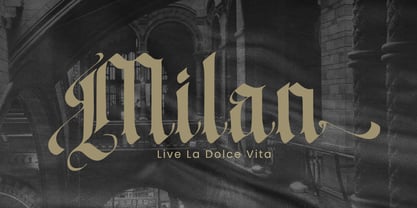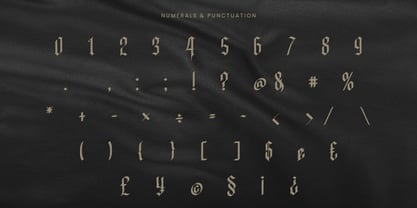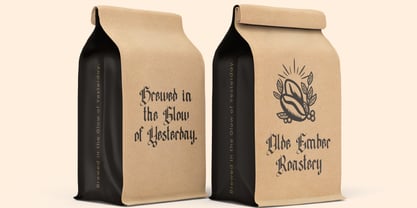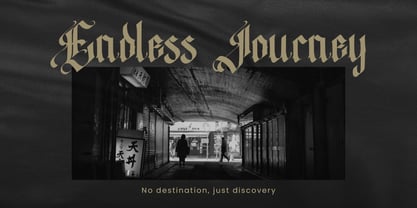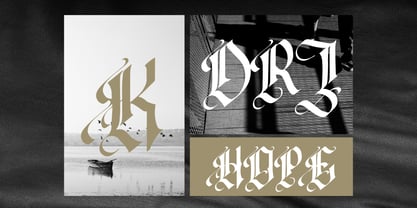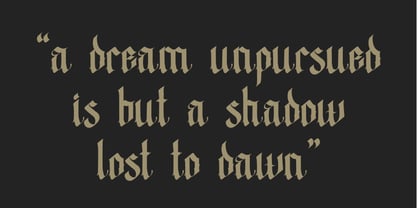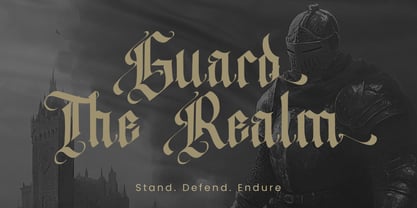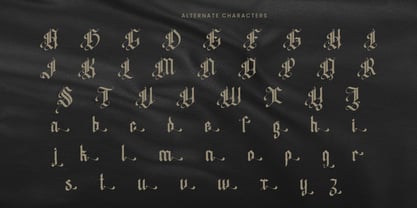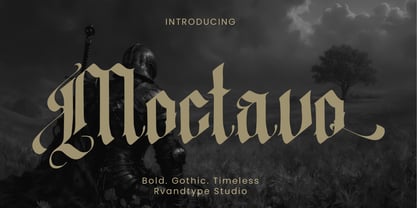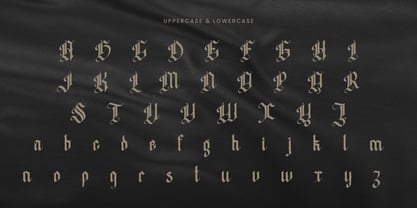
Moctavo
by Rvandtype
Moctavo is a blackletter display font that blends traditional gothic aesthetics with a bold, contemporary edge. Designed for impact, this typeface brings a strong character and unique presence to any visual project.
Perfect for:
• Music posters (metal, punk, rock, indie)
• Edgy branding
• Book or magazine covers
• Packaging with personality
• Statement-making social media graphics
Features:
• Classic blackletter forms with modern twist
• Sharp angles and bold strokes for a striking look
• Decorative ligatures and alternate characters for creative freedom